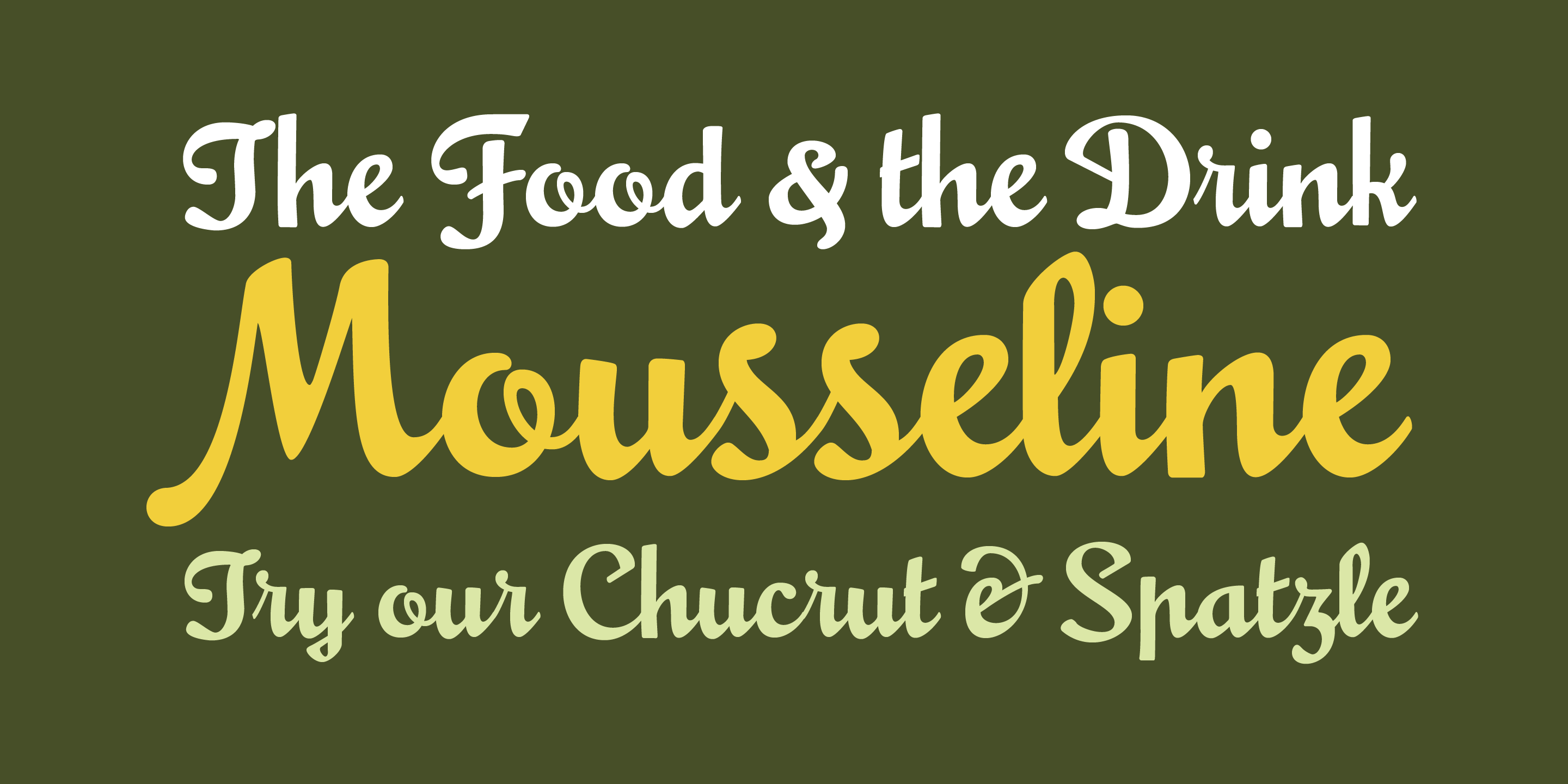
Mousse Script Font is perfect for playful branding projects, children's book covers, creative logos, casual restaurant menus, craft product packaging, greeting cards, social media graphics, blog headers, lifestyle magazines, handmade product labels, and fun promotional materials. This charming script typeface brings warmth and personality to any creative design project.
What makes Mousse Script Font exciting is its delightful hand-lettered character that perfectly captures the essence of modern casual calligraphy. The font features organic, flowing strokes with natural variations that create an authentic handwritten feel. Its friendly and approachable appearance makes it ideal for brands wanting to establish a personal connection with their audience. The typeface's playful curves and balanced proportions ensure excellent readability while adding a touch of whimsy and creativity to any design application.
The Mousse Script Font family includes regular and bold weights, along with a comprehensive set of alternate characters and ligatures. This versatile script family offers multiple letter variations, decorative swashes, and connecting elements that allow designers to create unique, personalized typography. The font supports extended Latin characters, making it suitable for international projects and multilingual applications.
Whether you're working on artisanal branding, creative marketing materials, or personal projects, Mousse Script Font Free Download provides the perfect balance of charm and professionalism. Its versatile nature and friendly aesthetic make it an excellent choice for designers seeking to add personality and warmth to their typography.